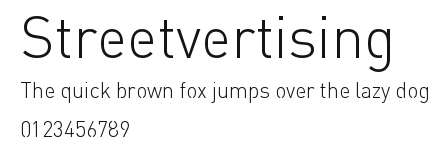
• Font Name: Streetvertising
• Font Style: Light
• Designer: Brandon Landaal
About Streetvertising.ttf
Streetvertising.ttf is a modern, elegant sans-serif font designed for ultimate readability and visual harmony. Perfect for branding, headlines, web design, and print materials.